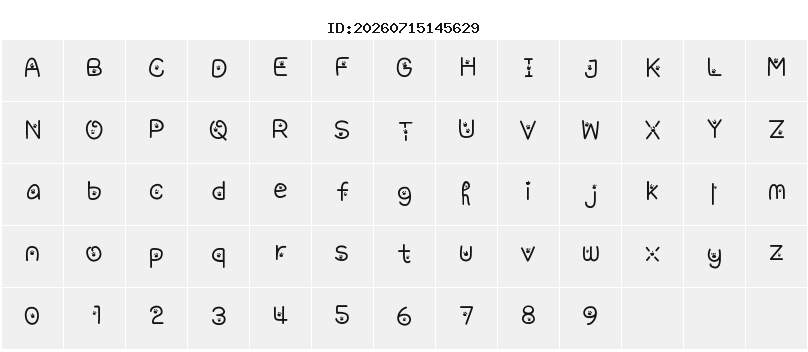
About awpaws.ttf
awpaws.ttf is a modern, elegant sans-serif font designed for ultimate readability and visual harmony. Perfect for branding, headlines, web design, and print materials.